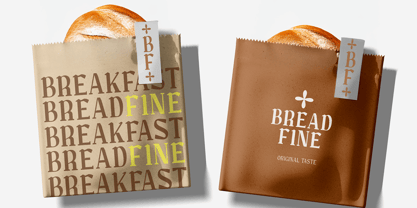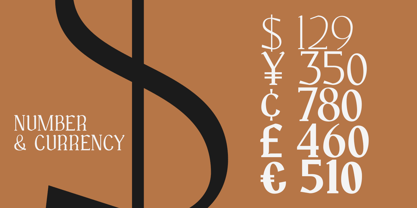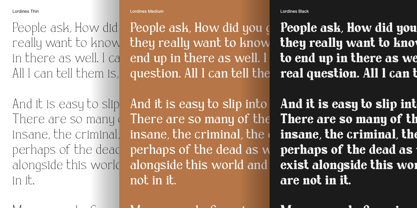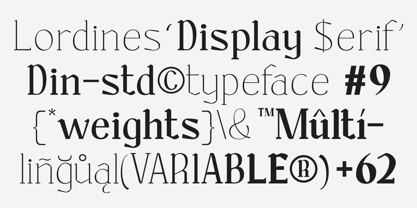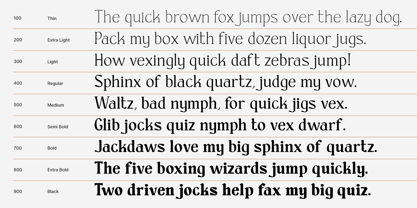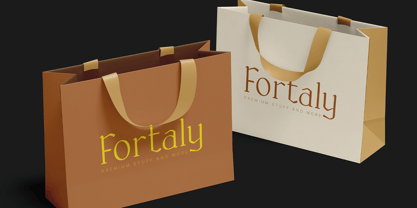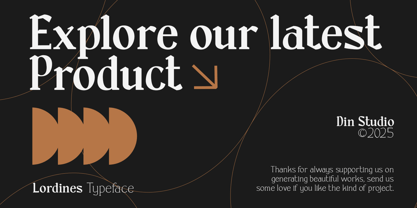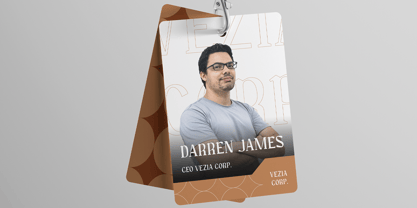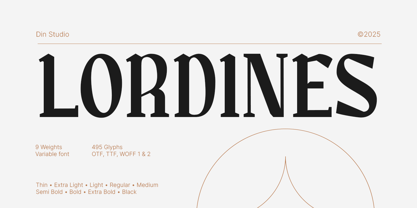
Lordines
Lordines is a display serif font family that bridges the elegance of old-style serifs with a refined modern twist. Featuring 9 expressive weights—from Thin to Black—and a variable font option for smooth weight control, Lordines brings timeless sophistication to headlines, editorial layouts, and branding with a fresh contemporary edge. In addition, enjoy the features here.